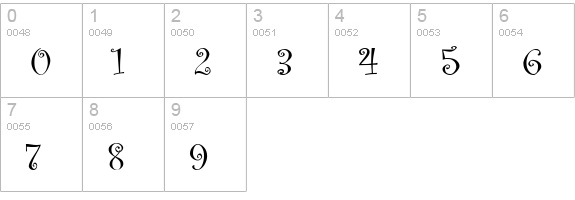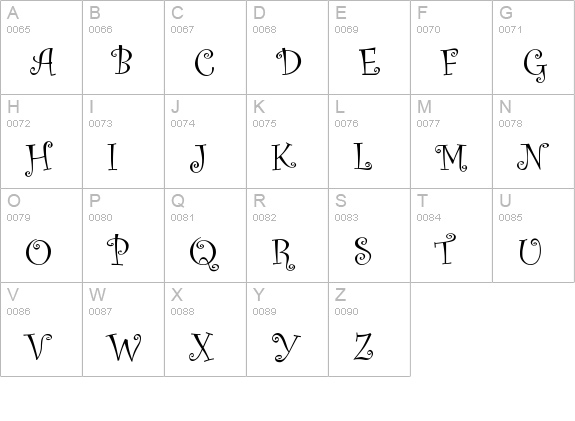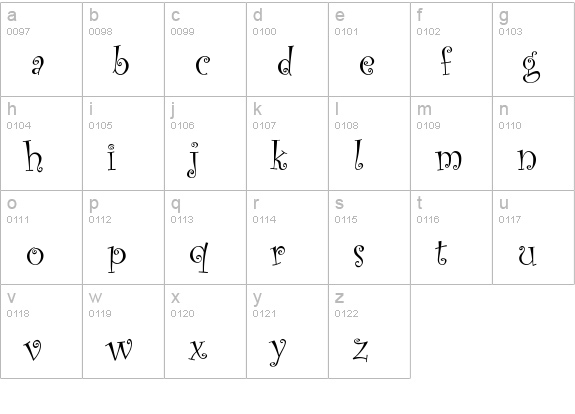
Old Comedy Font Details
Old Comedy font is a delightful and whimsical typeface that embodies the charm of classic comedic styles. With its playful and quirky design, Old Comedy is perfect for adding a touch of humor and personality to your projects. This font features unique characters with exaggerated angles and curves that give it a lighthearted and fun feel. Best of all, Old Comedy font is completely free to download at FontsMarket.com, making it accessible to anyone looking to inject some humor into their designs. Whether you're creating a poster, invitation, or any other creative project, Old Comedy font is sure to bring a smile to your audience's face. Download this charming font today and let your creativity shine with a touch of comedy!